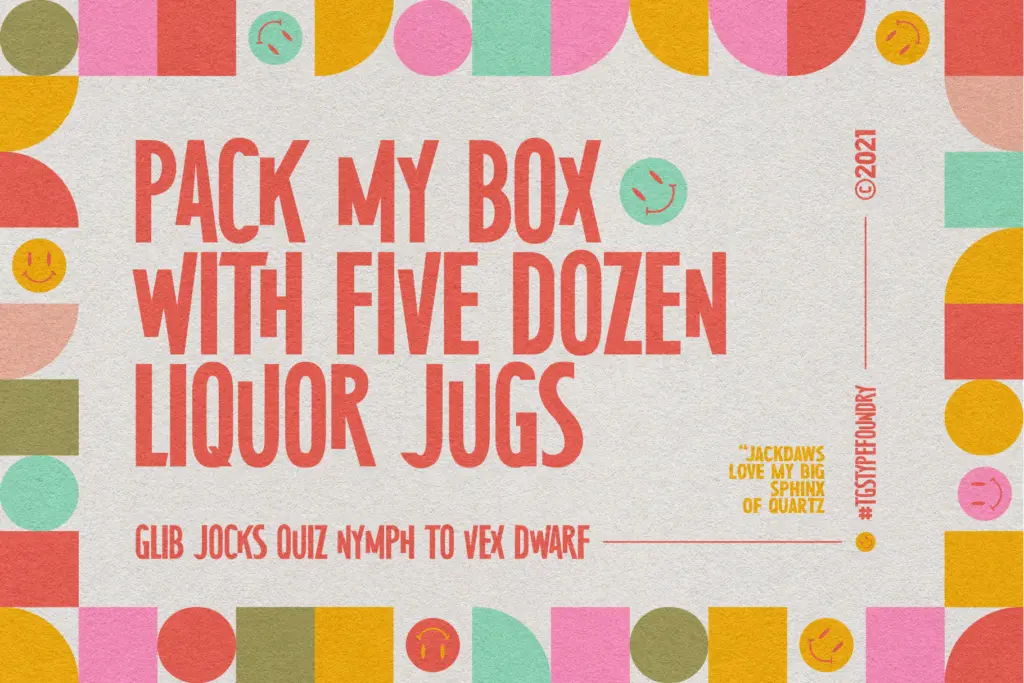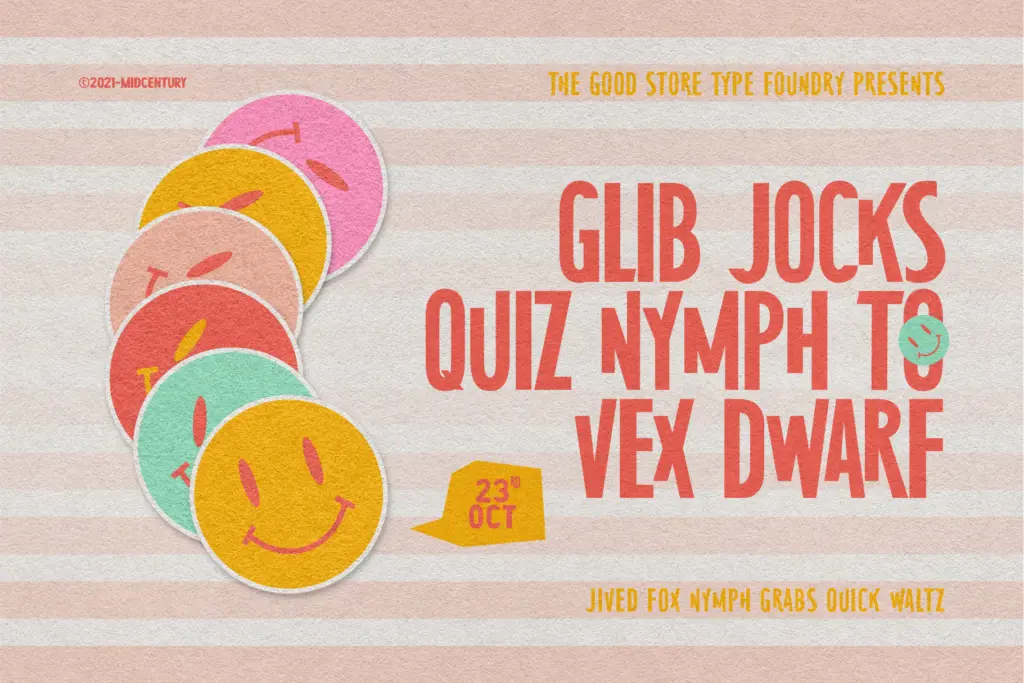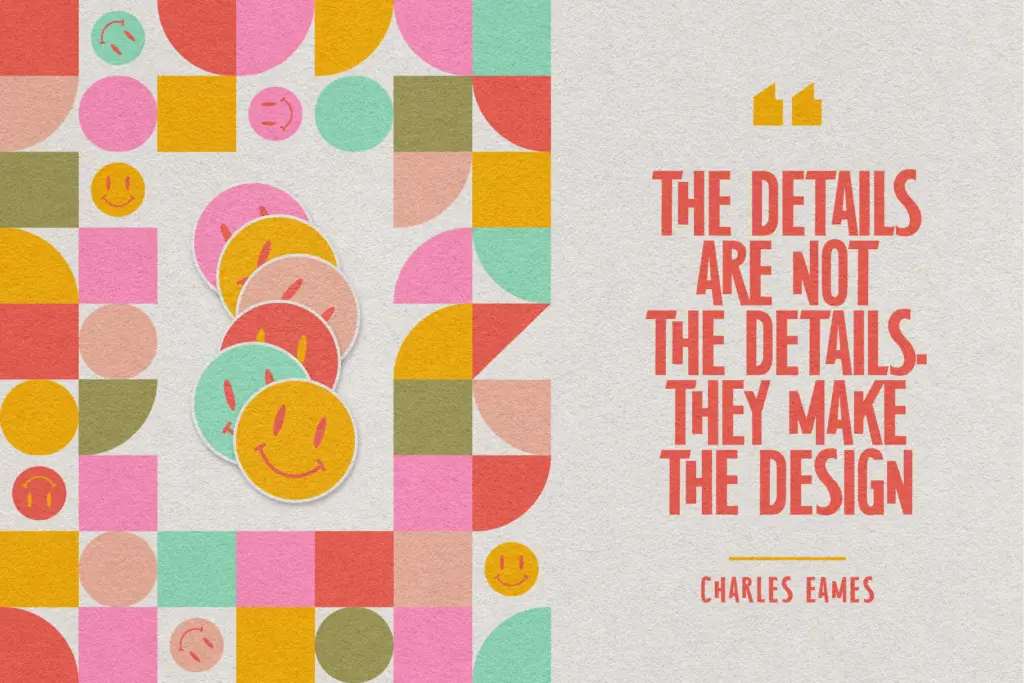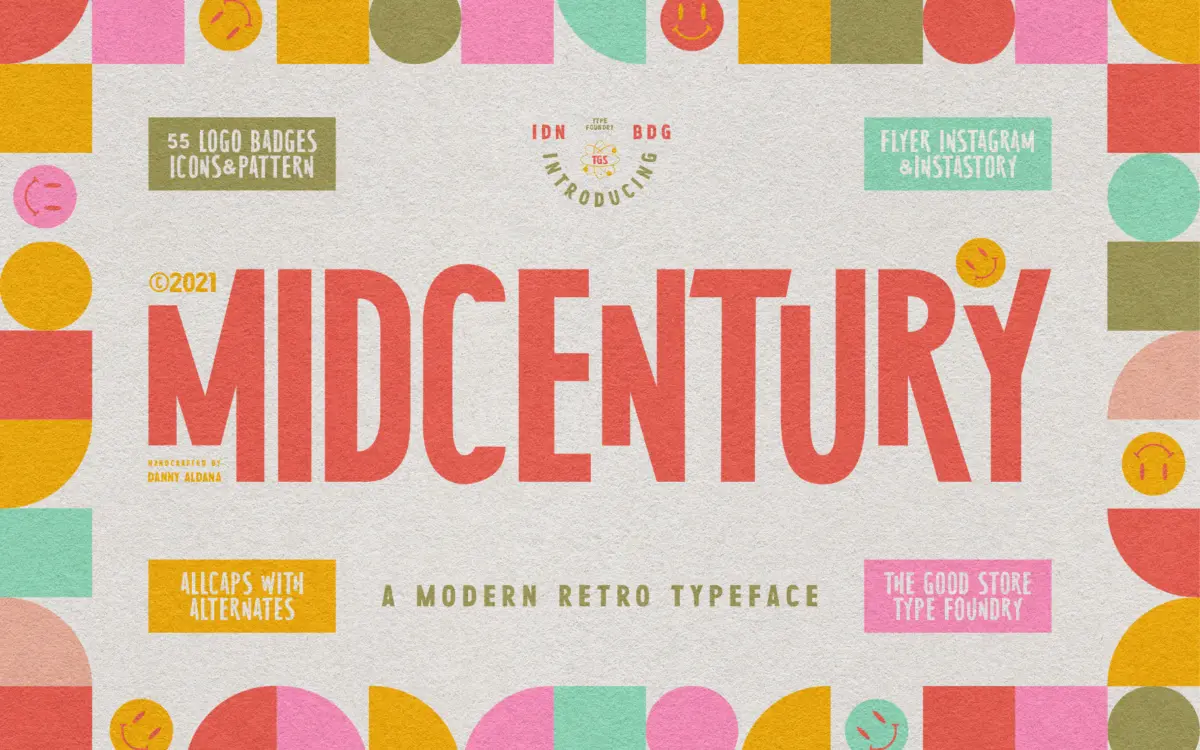
MidCentury Typeface Free Download
MidCentury Typeface is an uppercase-only display face pitched squarely at the poster-and-book-jacket look of the 1950s. The letters carry the low-contrast, slightly rounded slab feel that shows up in that era’s paperback covers and travel posters: sturdy strokes, blunt terminals, and a geometric undercurrent that keeps it from tipping into full nostalgia pastiche. It’s not trying to be a faithful revival of any one historical face — it reads more like a contemporary designer’s shorthand for “mid-century,” which is honest about what it is and where it’s useful.
The letterforms are even in weight and width, giving the face a stamped, confident presence rather than a delicate one. There’s no lowercase, which is typical for this genre and keeps the design consistent — every word set in it becomes a block of capitals, which is part of the look rather than a limitation to work around.
As an all-caps display font, the character set covers uppercase letters, numerals and basic punctuation — enough for headlines, badges and short lines of copy, not for setting paragraphs. The brief mentions OpenType features are supported, though without specifics on what those swaps do; worth opening in a type tool to see what alternates, if any, are on offer before committing to a layout that depends on them.
What makes this release more than just a font file is the accompanying kit: a flyer template, Instagram post and story templates, a large batch of logo and badge templates, background patterns and a set of mid-century-styled icons, all as editable Illustrator files. For a display face like this, that’s a meaningful addition — a lot of the value in a period-styled capital font comes from how it’s framed, and having 55 badge layouts already built around it saves the fiddly work of constructing your own laurel-and-ribbon compositions from scratch.
This is a font for short bursts of text: logotypes, badges, book and record covers, poster headlines, packaging labels, café signage, anything where a handful of words need to read as a stamped, retro mark rather than as running text. The all-caps structure and even weight make it legible at large sizes and in tight badge circles, which is exactly where it’s designed to live.
It’s less suited to anything requiring sentence case, body copy, or a soft, handwritten warmth — for that you’d need a companion script or a text serif, and none is bundled here. Treat it as a headline specialist: pair it with a plain sans or serif for supporting copy, and let the icons and templates handle the surrounding decoration rather than trying to stretch the type family to do everything itself.
- The bundled badge, icon and template files save real production time for retro-styled branding work
- Even, blunt letterforms hold up well at both poster scale and small badge sizes
- The uppercase-only design gives a consistent, stamped look across headlines and logotypes
- No lowercase means it can't be used for body copy or anything needing sentence case
- OpenType features are mentioned but not detailed, so alternates need checking before relying on them
MidCentury Typeface does one job well: stamped, retro-flavoured capitals for badges, covers and short headlines. The bundled templates and icons add real practical value, but the font itself is a specialist tool, not a workhorse.